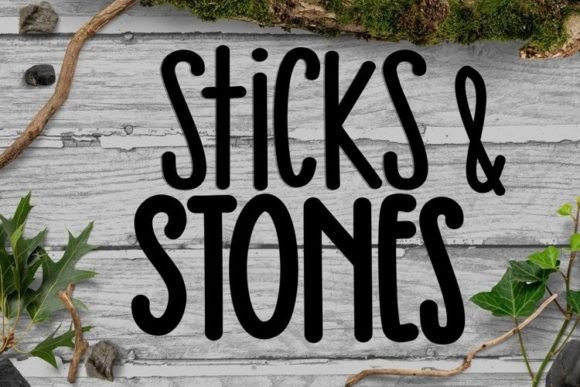
Introducing Sticks and Stones Duo Font, the perfect choice for those seeking the best fonts for fun flyers! Created by SugarBearStudio, this cute and quirky handwritten sans serif font is sure to capture your heart with its playful and carefree spirit.
What sets Sticks and Stones apart from the rest is its unique irregular letterforms and rough edges, which are inspired by the beauty of the natural world. This font exudes authenticity and charm, allowing you to effortlessly stand out from the crowd.
With its simple and clean design, Sticks and Stones ensures legibility and versatility in every aspect of your design. Whether you're creating a stunning logo or eye-catching social media graphics, this font will bring your vision to life with ease.
But what truly makes Sticks and Stones shine is its fun and whimsical style. Infused with a touch of personality and uniqueness, this font adds a delightful twist to any project you embark on. Let your creativity run wild as you explore the endless possibilities this font has to offer.
Imagine captivating your audience with flyers that are impossible to ignore. Picture your brand coming to life with a font that effortlessly communicates your playful and carefree nature. Sticks and Stones Duo Font will be your secret weapon, ensuring that your message stands out and leaves a lasting impression.